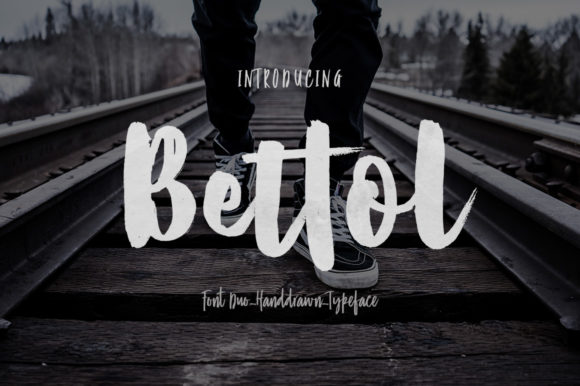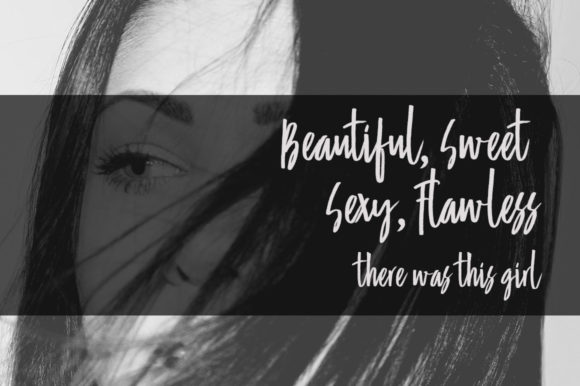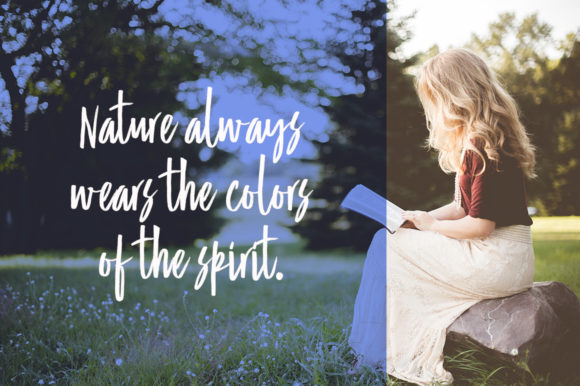
Bettol Duo Font
About Bettol Duo Font
The Bettol is a striking font duo. It has a very natural writing style and a great readability.
It’s perfect for making any design stand out!